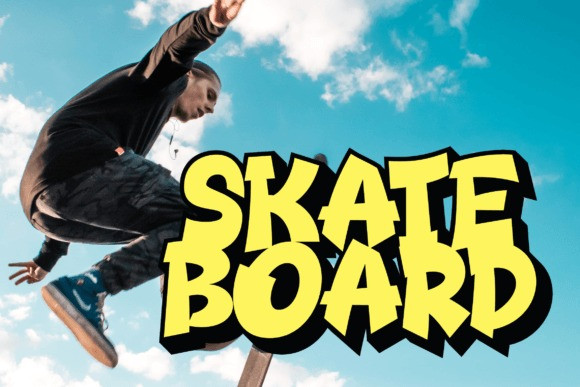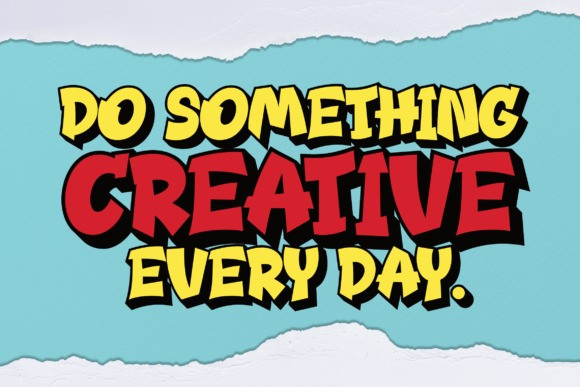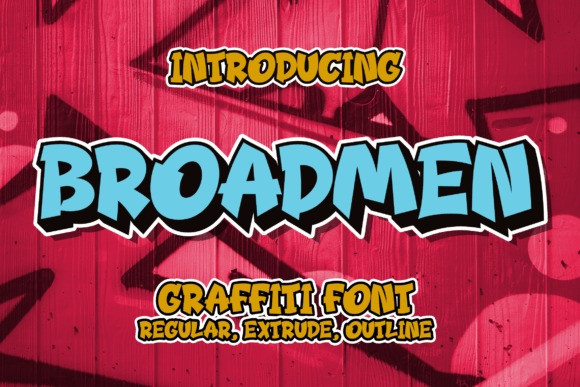
Broadmen Font
Broadmen Font is a cool, graffiti-style display font. Add this font to your urban and casual creations, and you will love the outcome. This font is suitable for designs such as t-shirts, sportswear, logos, advertisements, clothing, and more.